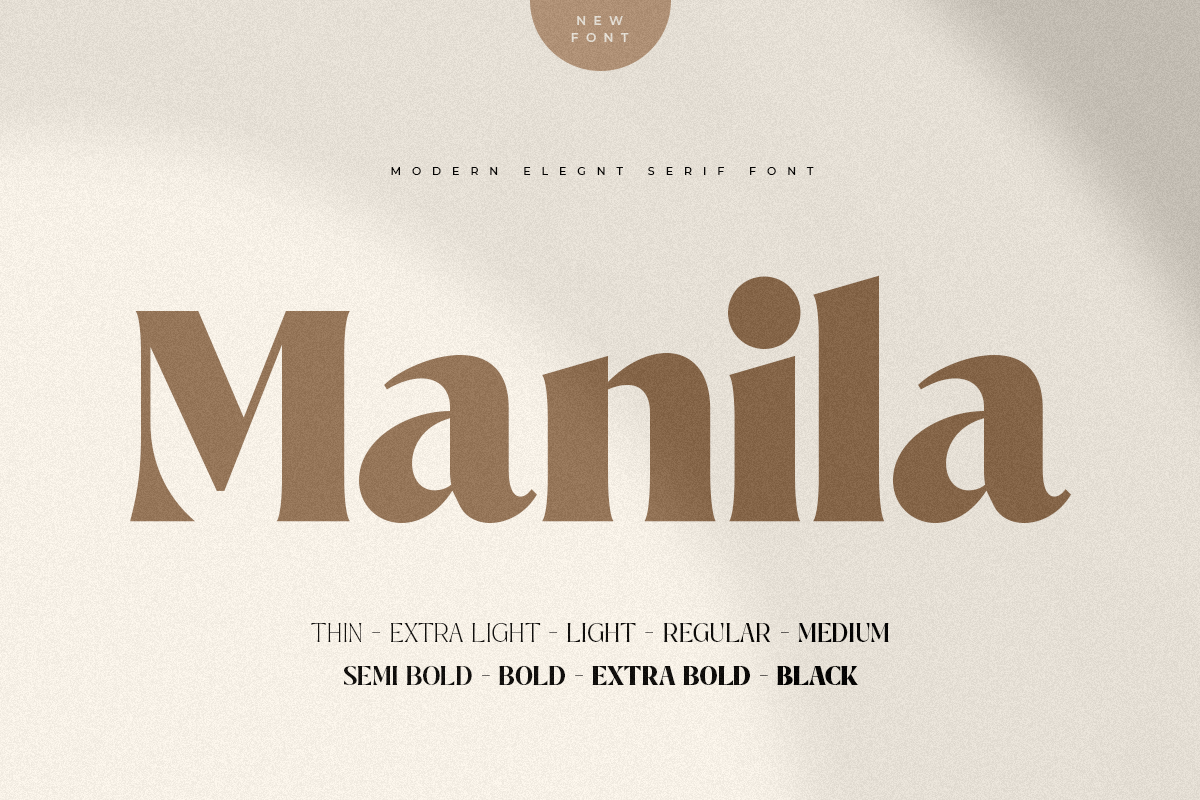
Manila – Modern Elegant Serif Font
Manila delivers sophisticated elegance with 9 meticulously crafted weights for premium branding and design projects. This modern elegant serif font combines timeless sophistication with contemporary versatility, featuring moderate contrast and exceptional legibility. Manila's refined character makes it perfect for creating beautiful typography that stands out across multiple design applications. Ideal for branding projects, logos, wedding designs, social media posts, advertisements, product pack...